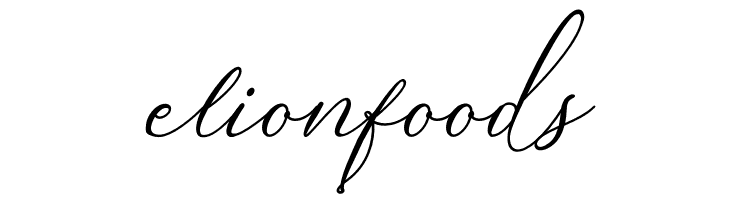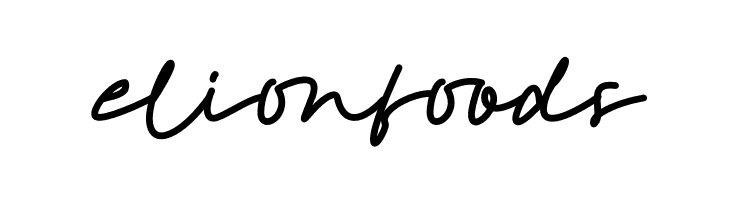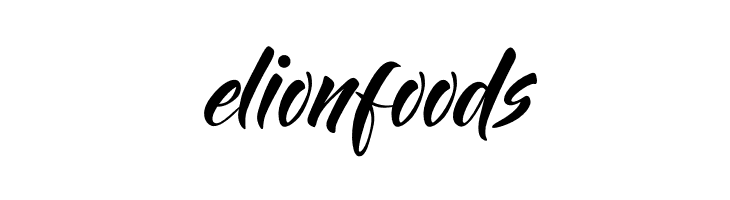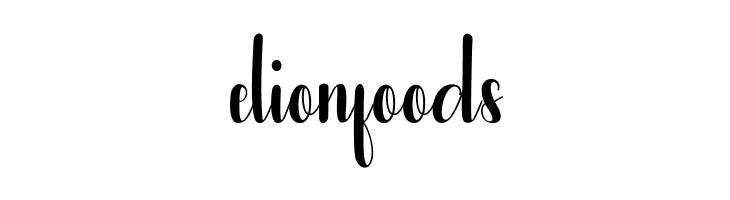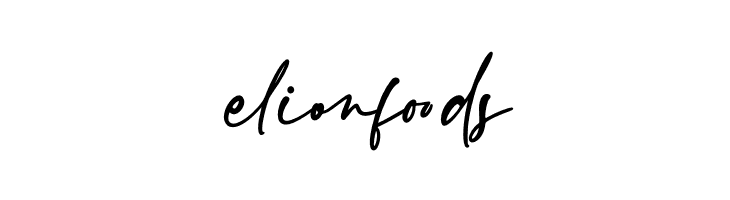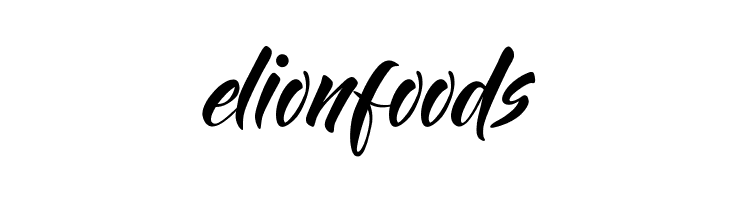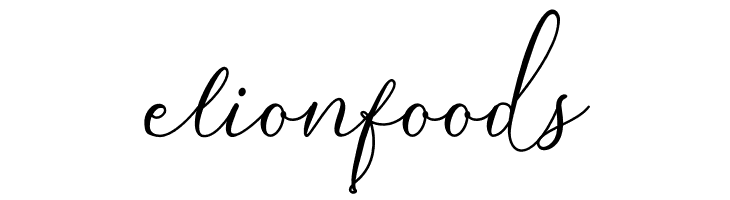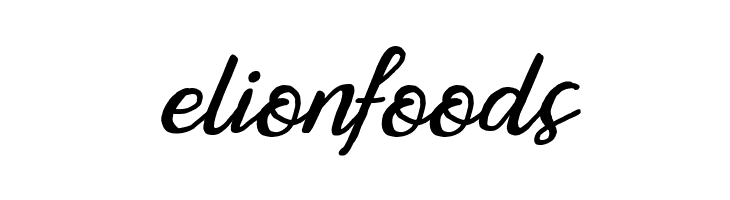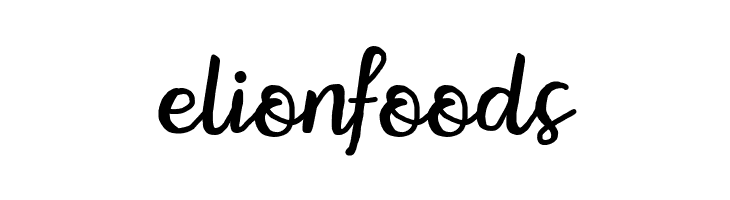
A cursive, handwritten-style font with smooth, flowing strokes.
A modern, cursive font with a natural handwriting style.
A bold, expressive script font with dynamic, cursive letterforms.
A bold, dynamic script font with fluid, expressive strokes and elegant flourishes.
A tall, elegant font with flowing, cursive-like strokes and dramatic flair.
A modern, elegant font with tall, narrow letterforms and flowing script-like curves.
A versatile font combining bold geometric uppercase with casual handwritten lowercase.
A fluid and elegant script font with a handwritten appearance.
A flowing, elegant script font with modern, artistic flourishes.
A graceful script font with fluid, cursive strokes and elegant loops.